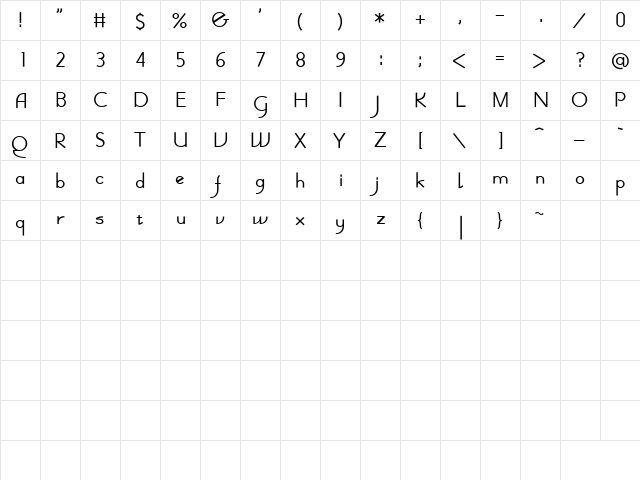
Val Blanc Regular
Design Context for Val Blanc Typeface
Val Blanc takes a measured approach to typography — its balanced proportions and neutral character make it a reliable workhorse for both digital and print work.